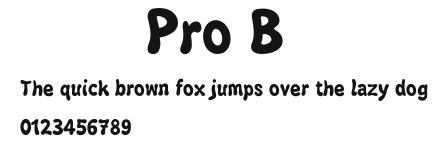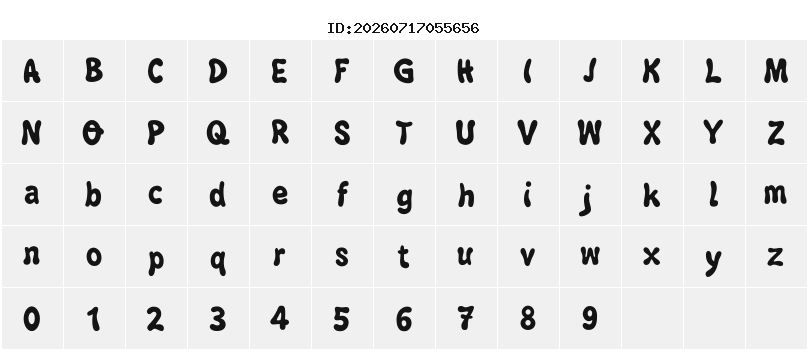
• Font Name: 小塚ゴシック Pro B
• Font ID: 2REB: Bubblegun: 2009
• Full Font Name: Bubblegun
• PostScript Name: Bubblegun
• Designer: Simon Thomaschke
• Manufacturer: Simon Thomaschke
About 小塚ゴシック Pro B.ttf
小塚ゴシック Pro B.ttf is a modern, elegant sans-serif font designed for ultimate readability and visual harmony. Perfect for branding, headlines, web design, and print materials.